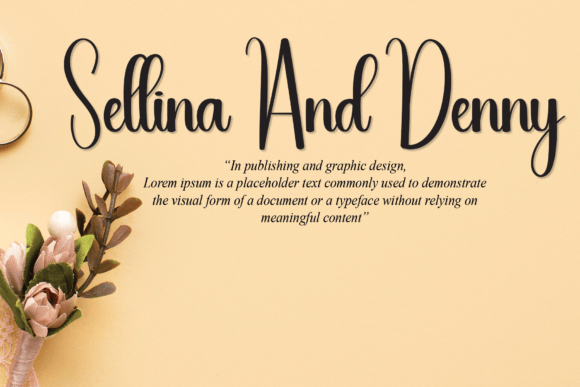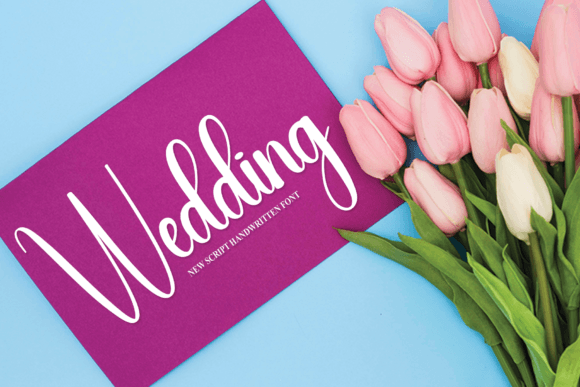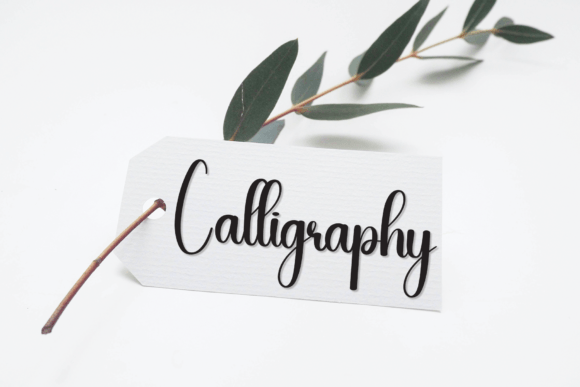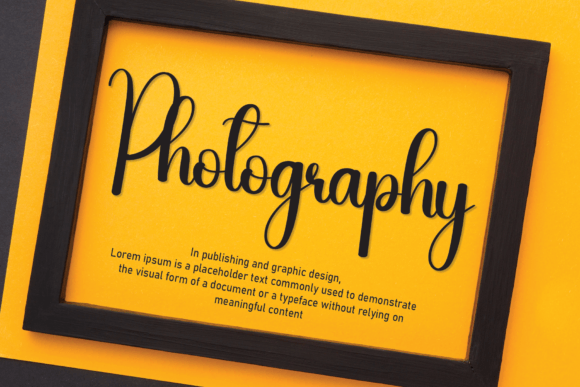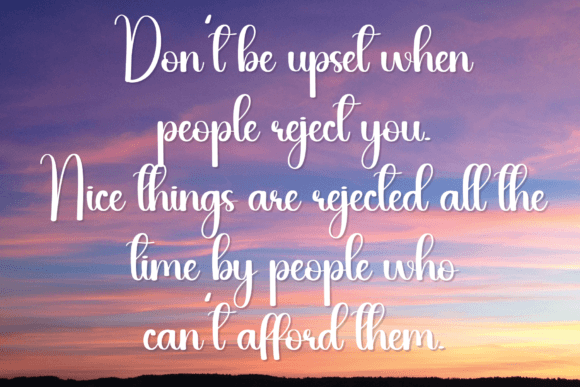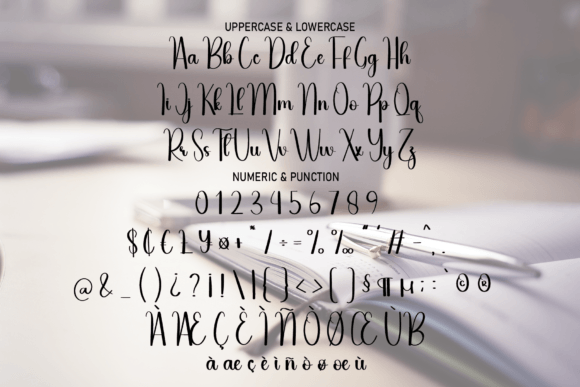
Introducing the Elegance of Calendar Font: Elevate Your Designs with Timeless Style
In the world of design, fonts play a pivotal role in conveying messages, evoking emotions, and creating lasting impressions. Among the myriad of font styles available, the Calendar Font stands out for its unique blend of classic appeal and modern versatility. This article delves into the essence of Calendar Font, exploring its characteristics, applications, and why it has become a favorite among designers and crafters alike.
The Charm of Calendar Font
Calendar Font is distinguished by its elegant and flowing script, reminiscent of traditional handwritten calendars. Each letter is crafted with precision, showcasing a harmonious balance of curves and lines that exude a sense of sophistication and charm. This font is not just a collection of letters; it’s an expression of artistry that brings a personal touch to any project.
The beauty of Calendar Font lies in its adaptability. It’s perfect for a wide range of applications, including:
- Wall Displays: Transform your walls with stylish quotes, poems, or phrases that capture the essence of the moment.
- Wedding Invitations: Add a touch of romance and elegance to your wedding invites, making them truly unforgettable.
- Social Media Post Logos: Elevate your social media presence with eye-catching logos that reflect your brand’s personality.
- Advertisements: Create compelling ads that draw attention and leave a lasting impression on your audience.
- Product Packaging: Stand out in the market with beautifully designed packaging that speaks to your brand’s aesthetic.
- Product Designs: Infuse your products with a sense of style and sophistication that appeals to customers.
- Labels: Whether for products, files, or gifts, add a personal touch with stylish labels.
- Photography: Enhance your photos with elegant watermarks that protect your work while adding a touch of class.
- Invitations: From birthday parties to graduations, make your invitations special with Calendar Font.
- Stationery: Elevate your letters, notes, and journals with a font that makes handwriting look effortlessly chic.
Why Designers and Crafters Love Calendar Font
Designers and crafters gravitate towards Calendar Font for several reasons:
- Uniqueness: In a sea of sans-serif fonts, Calendar Font offers a refreshing change with its distinctive style.
- Emotional Connection: The font’s elegant and flowing script can evoke emotions and create a personal connection with the audience.
- Versatility: Its adaptability to various projects makes it a valuable addition to any designer’s toolkit.
- Timeless Appeal: Unlike trendy fonts that may quickly go out of style, Calendar Font’s classic appeal ensures it remains relevant.
Tips for Using Calendar Font Effectively
To make the most of Calendar Font, consider the following tips:
- Pair with Simplicity: Let the font be the focal point by pairing it with simple backgrounds or design elements.
- Experiment with Colors: While the font itself is elegant, experimenting with colors can add a modern twist to your designs.
- Play with Sizes: Don’t be afraid to vary the font size to create visual hierarchy and emphasis in your designs.
Calendar Font is more than just a collection of letters; it’s a tool for designers and crafters to infuse their projects with elegance, charm, and a touch of timeless style. Whether you’re working on a wedding invitation, a product design, or a social media post, this font offers the versatility and aesthetic appeal to elevate your work. Embrace the elegance of Calendar Font and let your designs speak with a voice that’s both classic and contemporary.